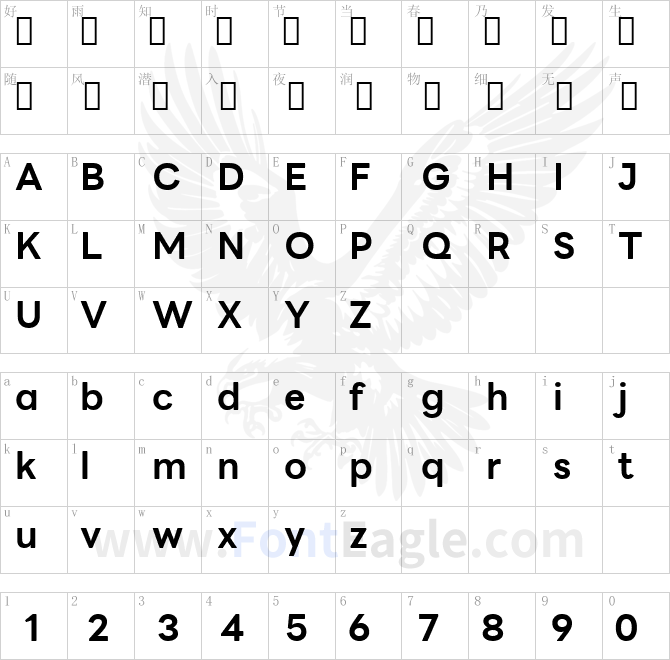
LINESeedSans_Bd is a great font, widely used in graphic design, single-page menu design, poster design and other fields, and is deeply loved by designers.LINESeedSans_Bd download.